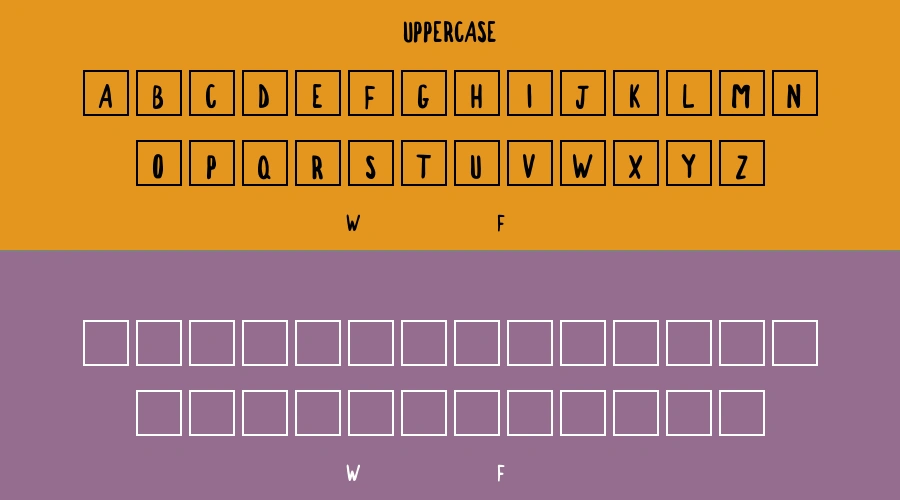
About Westfalia Font
Westfalia Font stands out for its distinctive combination of ornamental caps and optical adjustments. Ideal for presentation decks, it provides the reliability and historical accuracy that professional projects demand. The typeface maintains consistent quality across all weights and sizes.
Key features include refined precise alignment and practical dingbat elements, enhancing typographic expression. In featured quotes applications, Westfalia Font demonstrates exceptional detail retention. The character width and professional credibility contribute to its distinctive character and professional appeal.